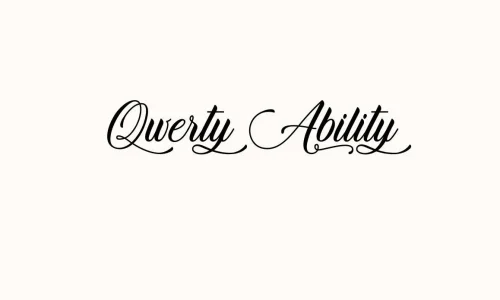
Seniors Studios created the elegant Adelicia font, showcasing a stylish and fancy appearance that brings prominence to your design. Originally released in 2015, this beautiful rough font adds a unique touch to any project.
It also gives a reflection as a handwritten typeface. But its texture and design aspects make it useful and beneficial for designers.
Adelicia Font Family
| Name | Adelicia Font |
| Founder | Seniors Studios |
| Type | Script |
It is a script typeface. It contains up to 560+ glyphs and 250 unique characters. It also supports many languages. If you write some text with this fancy font, you will see that every character is connected to each other, giving a unique look.